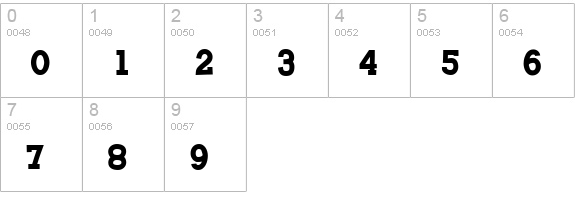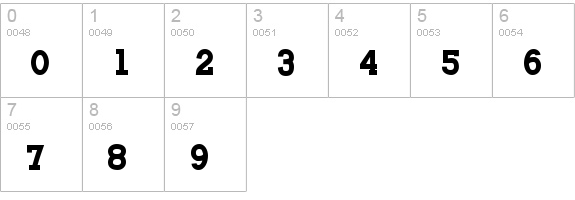
CF Green Monster Regular Font Details
CF Green Monster Regular is the standard, neutral variant in the CF typeface family \xE2\x80\x94 well suited to general body text, paragraphs, and standard typographic work.
CF Green Monster Regular is a font that exudes a sense of power and vigor. With its bold and distinct letterforms, this font demands attention and makes a strong impact. It is inspired by the iconic green monster that is synonymous with strength and resilience. This font is perfect for projects that require a touch of intensity and boldness. Whether it's designing eye-catching logos, creating impactful headlines, or making a statement with your typography, CF Green Monster Regular is sure to make a lasting impression. What sets CF Green Monster Regular apart is that it is free. That's right, this powerful font is freely available to download at FontsMarket.com. This means that you can bring a touch of strength and energy to your designs without any cost. Whether you're a professional designer or a hobbyist, CF Green Monster Regular is a valuable addition to your font library. Its versatility and impact make it suitable for a wide range of projects, from branding and advertising to social media graphics and website design. So why wait? Download CF Green Monster Regular today and unleash its power in your designs. With its free availability at FontsMarket.com, there's no reason not to add this font to your collection. Let CF Green Monster Regular elevate your designs and leave a lasting impression on your audience.